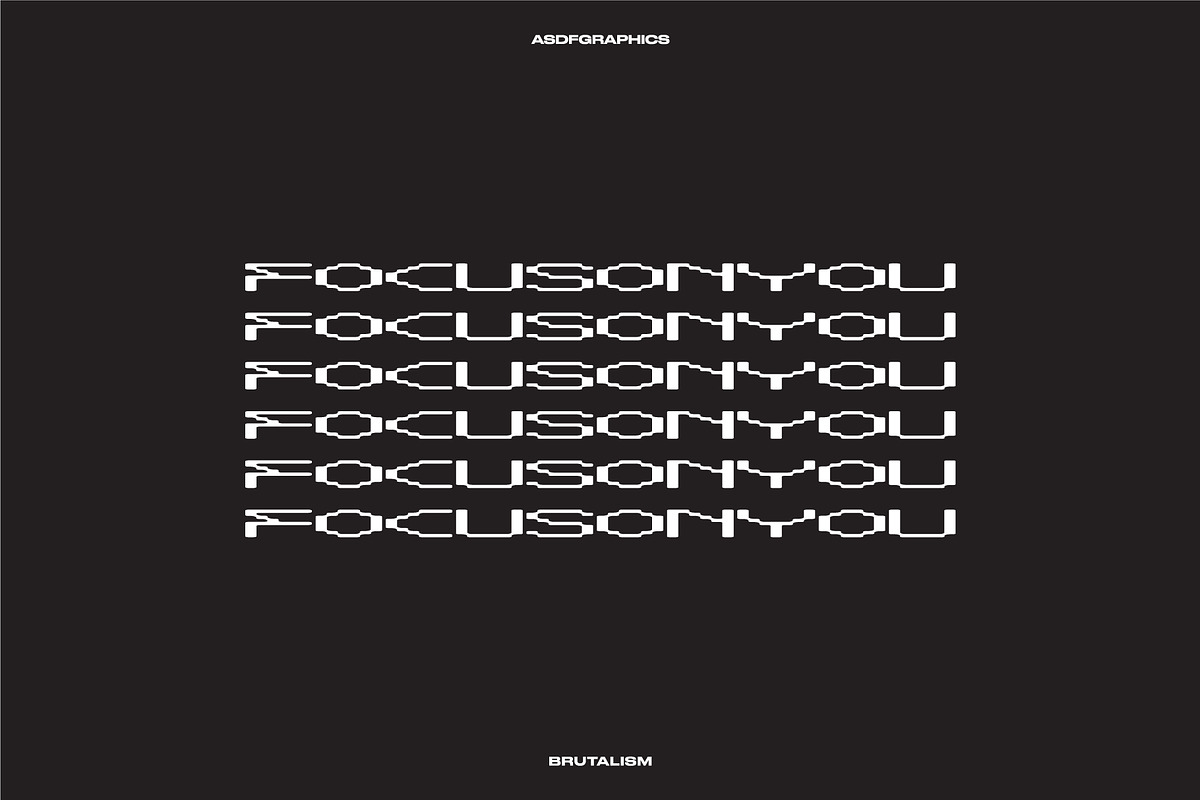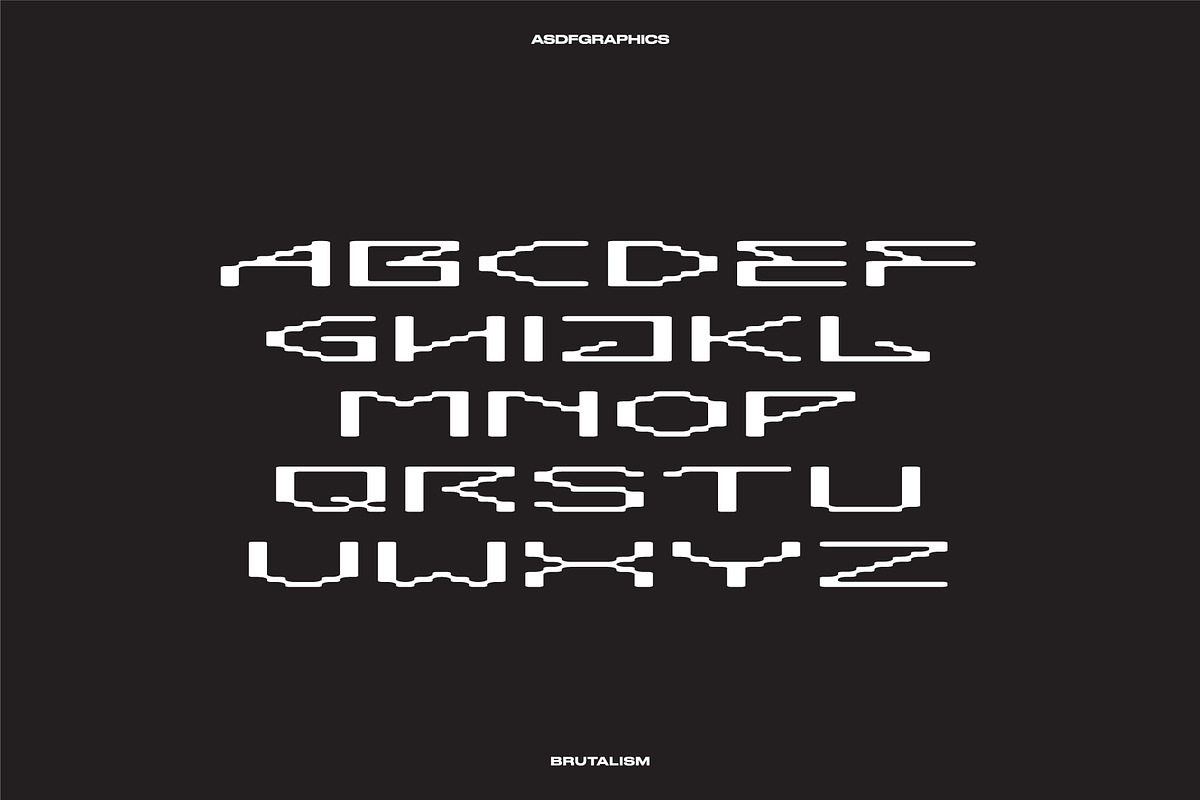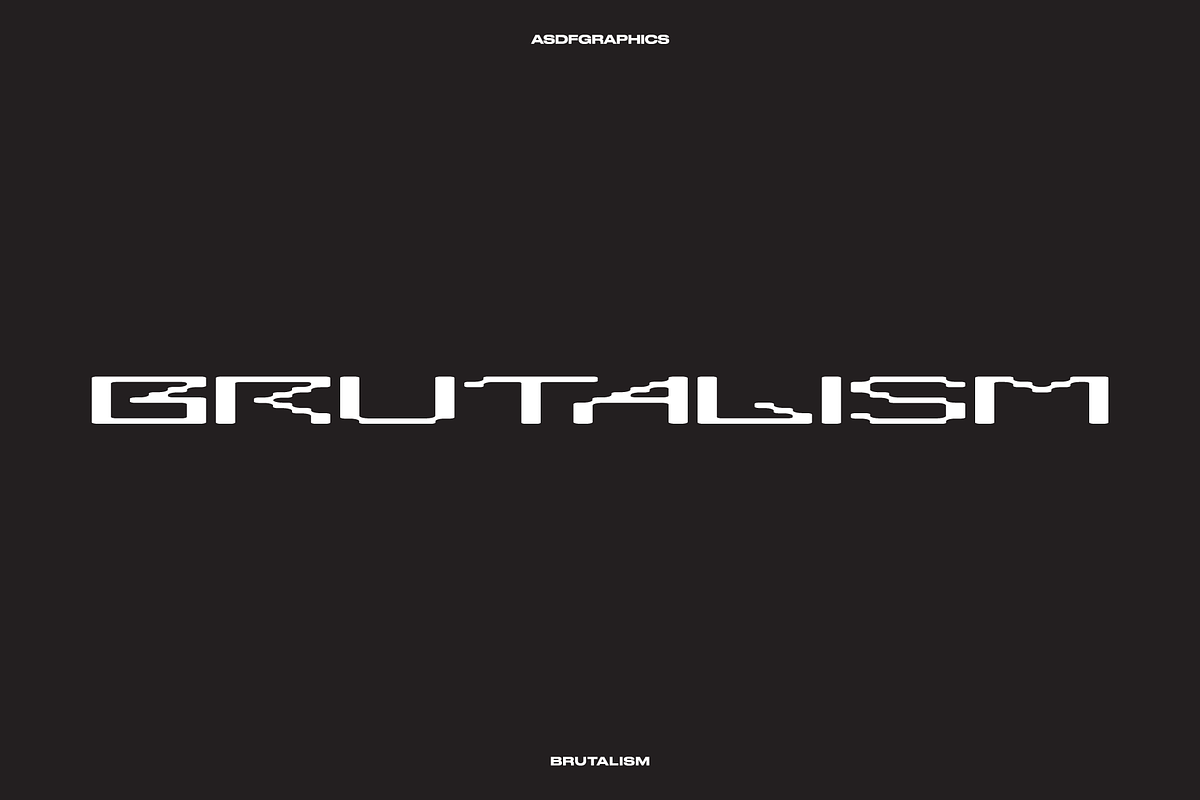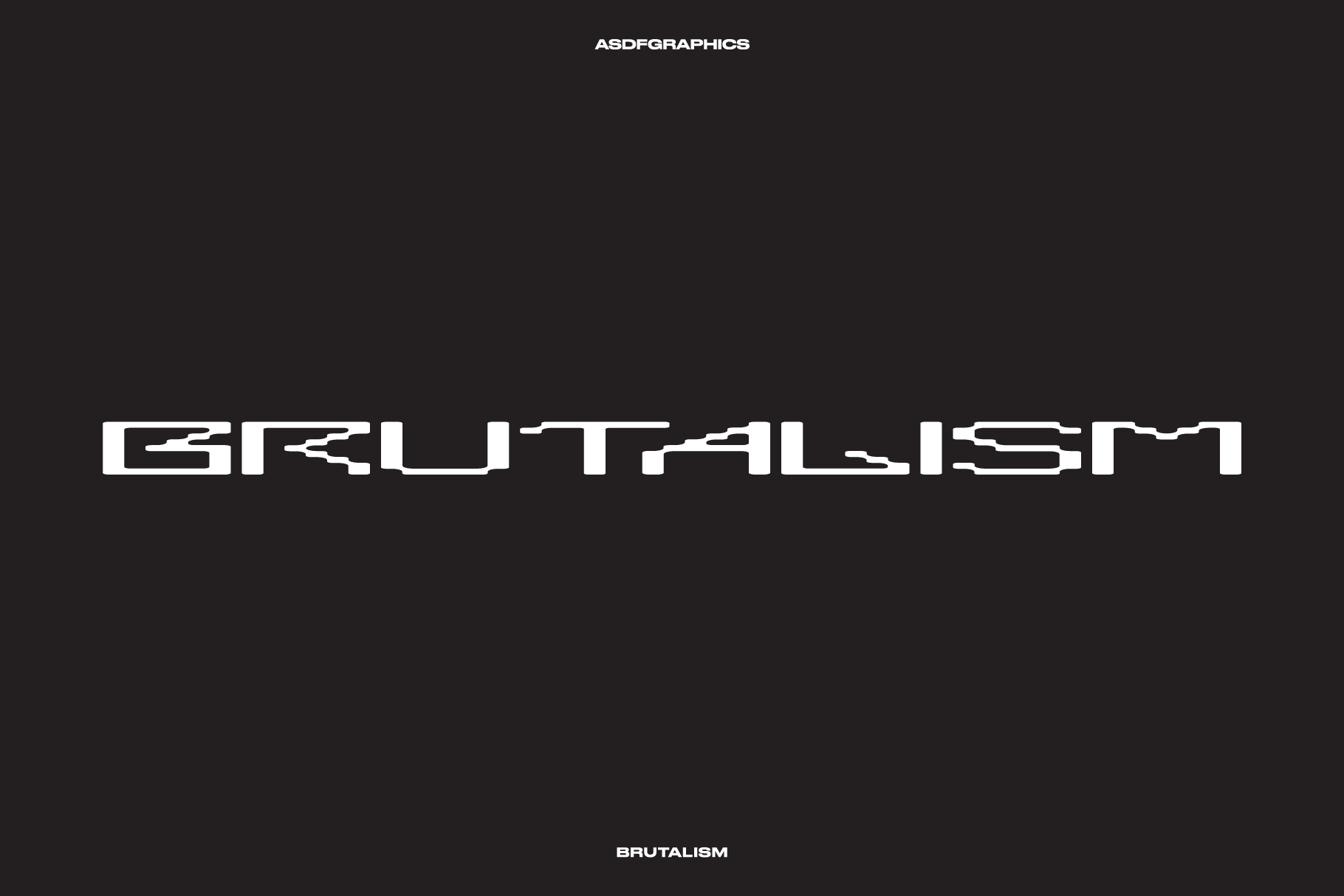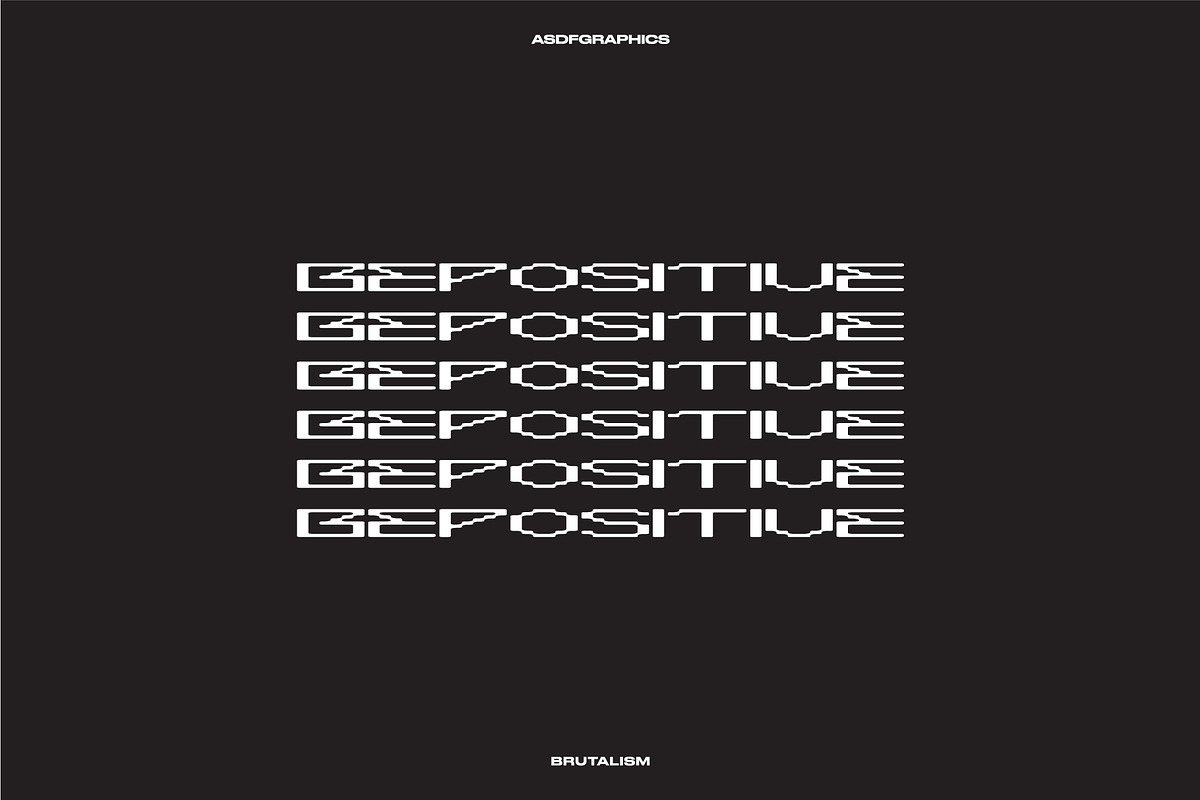
BRUTALISM TYPEFACE - ACID FONT
BRUTALISM TYPEFACE - ACID GRAPHICS FONT
A contemporary hybrid of blackletter and serif, retaining the elegance and style. Made for text display purposes, Brutalism Typeface brings a modern , gothic , sharp and strong impression to your design. With a bold acid style, suitable as the main text / header text on a poster , music artworks , website, t-shirt print, book cover etc.